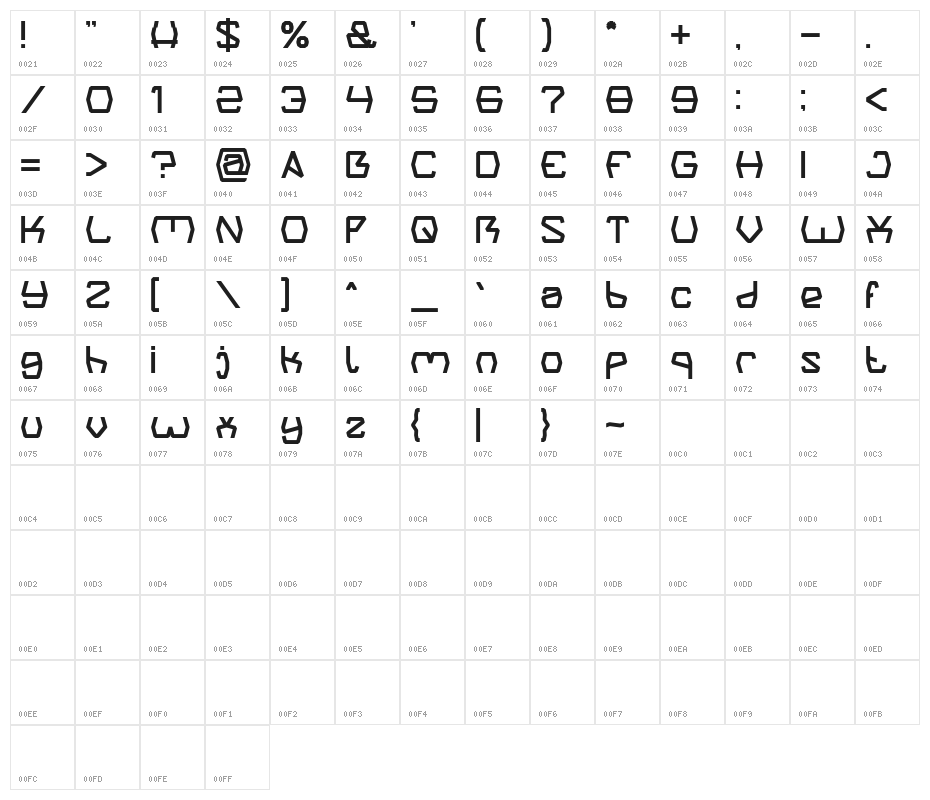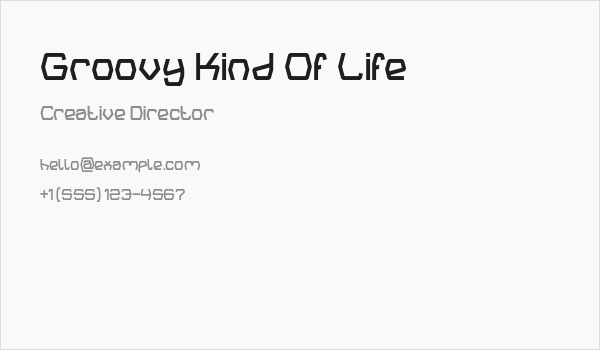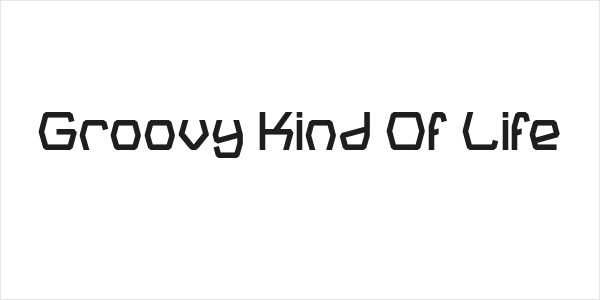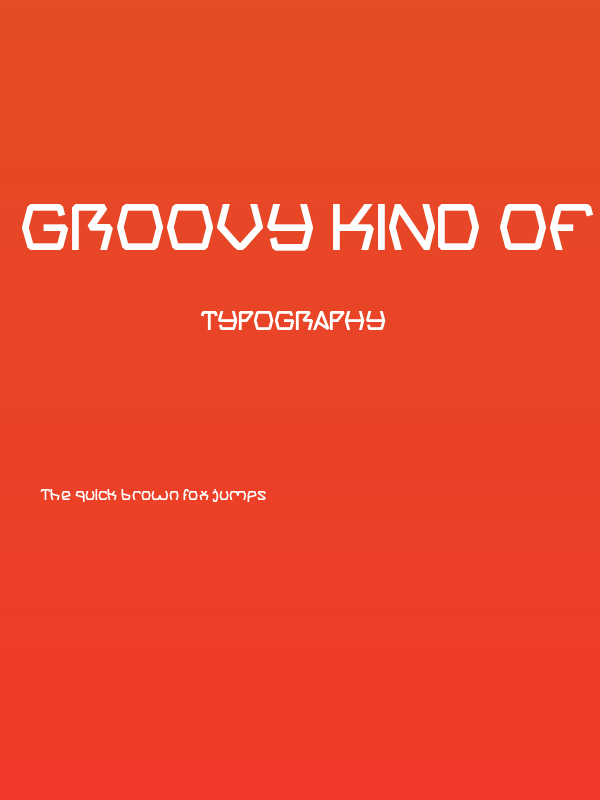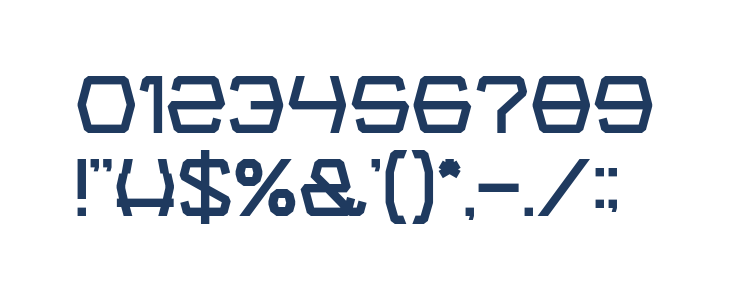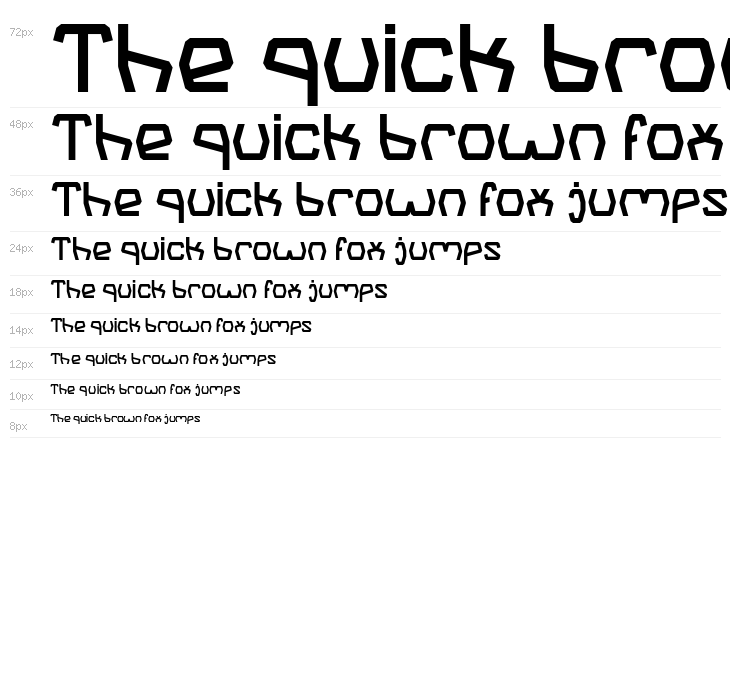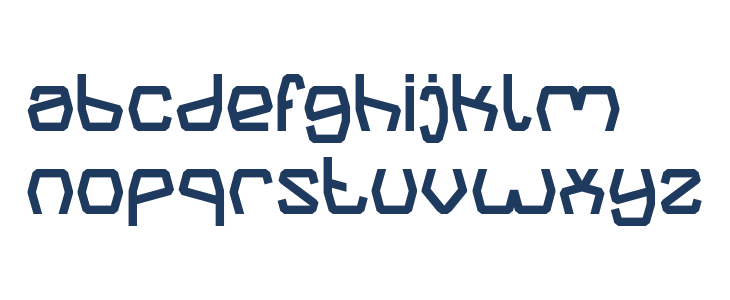
Groovy Kind Of Life Font
Groovy Kind Of Life Description
This font features a unique, geometric style with angular and bold letterforms. The characters are constructed with sharp edges and a consistent thickness throughout, giving it a futuristic and digital appearance. The uppercase and lowercase letters maintain a uniform height, contributing to a cohesive look. The numbers and special characters follow the same design principles, ensuring a harmonious overall aesthetic. The font's distinct style makes it stand out, ideal for projects that require a modern and edgy feel.
| Proposed Projects | Ideal for digital interfaces, tech branding, video game titles, and modern posters. |